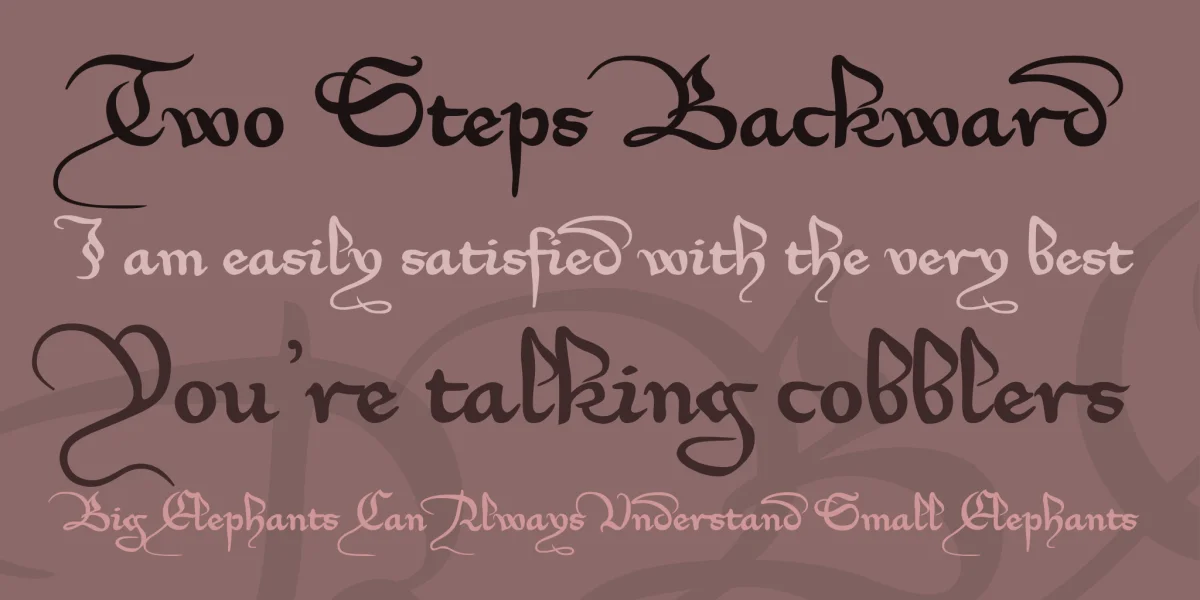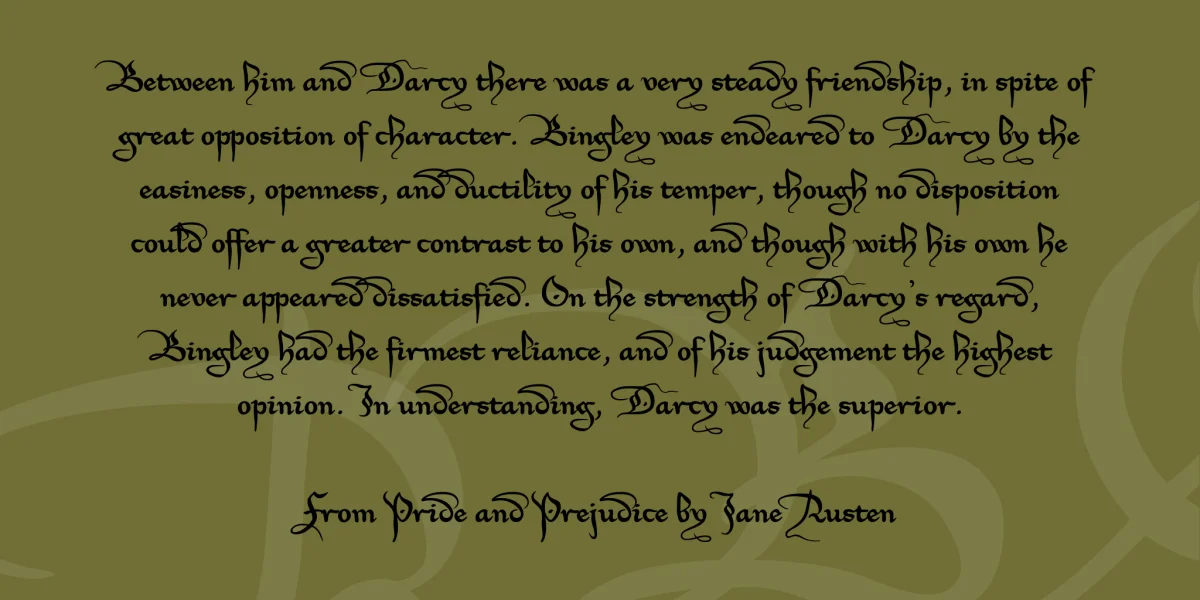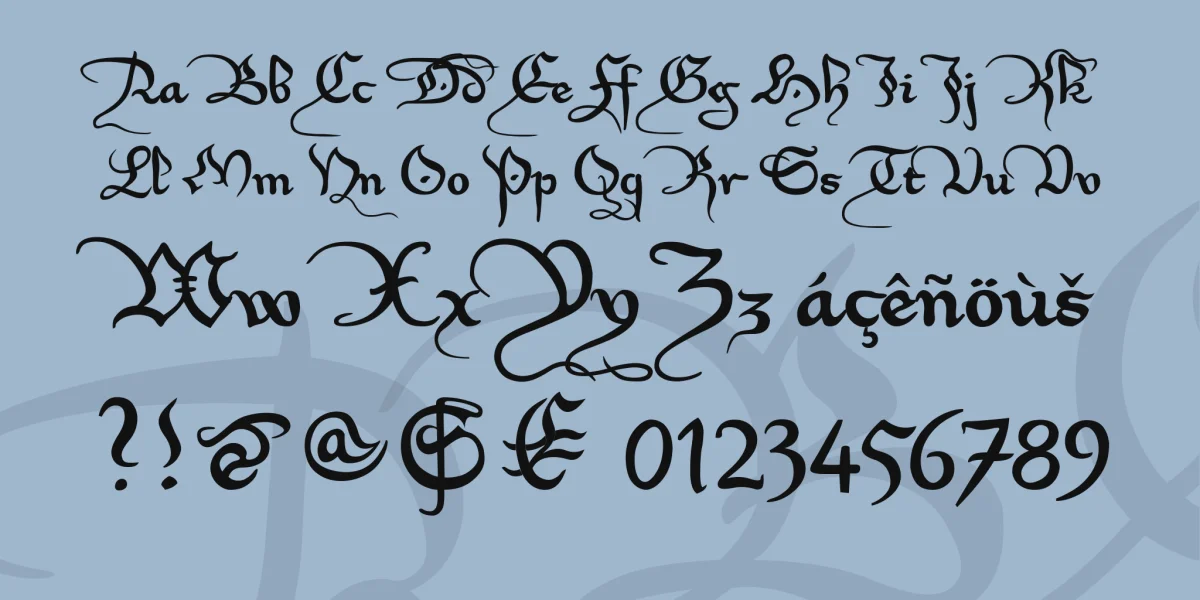
This rather swashed font has been designed mostly out of my own imagination, loosely based on some lower case characters of a writing sample found in a book. Consisting merely of the beginning of merely three lines, that sample was called a Florentine Bastarda, with no date or origin given. Since I first published the Xirwena font, I've been so lucky as to discover that sample to show a detail of a manuscript copy of Dante's Divina Commedia, written in 1337, and commonly referred to as the Codex Trivulziano, since it is kept under lock and key by the Biblioteca Trivulziana at Milan, Italy (which institution, unfortunately, though it has been re-opened now after a period of restructuring, doesn't exhibit any images of its spectacular possessions on the Net). The term "Florentine Bastarda", at least, has turned out to be perfectly correct, as far as the lower case of my font is concerned. Its upper case glyphs, however, have been inspired by German Bastarda writings from various sources; they are no exact matches, though.
Xirwena is a fancy name, and the heraldic lily contained in the font has been inspired by the arms of the city of Florence.
* There is no number sign in this font. In its place, you'll find a long s.
* Moreover, you'll find a less space-consuming d on the bar sign...,
* ... as well as an ld ligature and a double l on the left and right curly brackets.
* The long s will show up as a double long s.
Update 2007 has moved the curly brackets to the fi and fl signs (or the masculine/feminine ordinal indicators, or the 'less/greater than or equal to' signs), has reduced the file size by redesigning the composite glyphs, and has corrected some minor flaws.
Update 2010 has redesigned all of the composite glyphs (correcting the dcaron, Lcaron/lcaron, and tcaron), and enlarged the dashes.